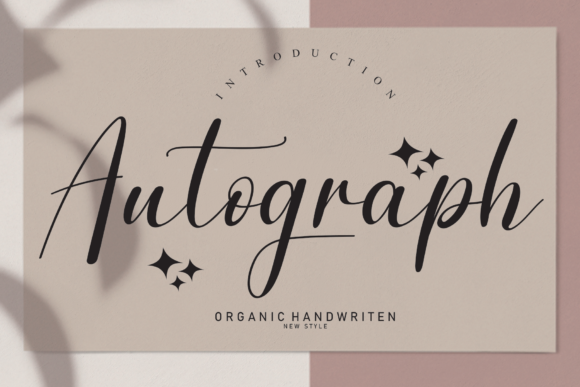
Introducing Autograph Font: The Ultimate Choice for Crafty Designs
Are you a designer or crafter looking for a font that can add a touch of elegance and sophistication to your projects? Look no further than Autograph Font, a beautiful and versatile handwritten font that is perfect for a wide range of crafty ideas. In this article, we’ll take a closer look at the features and benefits of Autograph Font, and explore how you can use it to take your designs to the next level.
What is Autograph Font?
Autograph Font is a gentle and dainty handwritten font that features sweet and delicate swashes. This beautiful font is designed to add a touch of whimsy and romance to your designs, making it perfect for a wide range of projects, from letterheads and titles to stationery and more. With its versatile look and feel, Autograph Font is sure to appeal to designers and crafters of all levels.
Key Features of Autograph Font
So, what makes Autograph Font so special? Here are just a few of the key features that set it apart:
- Gentle and dainty design: Autograph Font features a delicate and refined design that is perfect for adding a touch of elegance to your projects.
- Sweet and delicate swashes: The font includes a range of sweet and delicate swashes that can be used to add a touch of whimsy and romance to your designs.
- Versatile look: Autograph Font has a versatile look that makes it perfect for a wide range of projects, from formal letterheads to more informal stationery.
Uses for Autograph Font
So, what can you use Autograph Font for? The possibilities are endless! Here are just a few ideas to get you started:
- Letterheads and titles: Autograph Font is perfect for creating elegant and sophisticated letterheads and titles.
- Stationery: Add a touch of whimsy and romance to your stationery with Autograph Font.
- Signage: Autograph Font is also great for creating eye-catching signage for events, businesses, and more.
- Branding and packaging: Use Autograph Font to add a touch of elegance and sophistication to your branding and packaging.
Tips for Using Autograph Font
Here are a few tips for getting the most out of Autograph Font:
- Experiment with different sizes and styles: Autograph Font looks great in a range of sizes and styles, so don’t be afraid to experiment and find the look that works best for your project.
- Use swashes to add interest: The swashes in Autograph Font are a great way to add interest and visual appeal to your designs.
- Pair with other fonts: Autograph Font pairs well with a range of other fonts, so try combining it with different fonts to create a unique and eye-catching look.
Autograph Font is a beautiful and versatile handwritten font that is perfect for designers and crafters of all levels. With its gentle and dainty design, sweet and delicate swashes, and versatile look, Autograph Font is sure to add a touch of elegance and sophistication to any project. Whether you’re creating letterheads and titles, stationery, signage, or branding and packaging, Autograph Font is the ultimate choice for crafty designs.